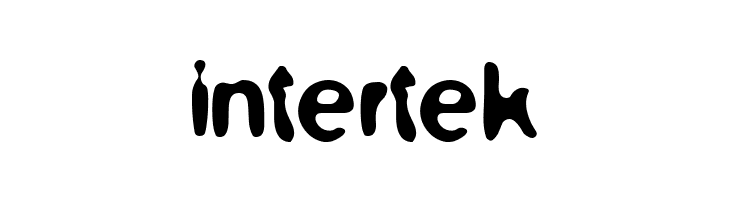
Aroundabout-Regular Font
- Font: Aroundabout-Regular
( Fonts by Dave Kellam - Brian Stuparyk - www.eightface.com )
A bold, playful font with wavy outlines and high contrast, perfect for dynamic designs.